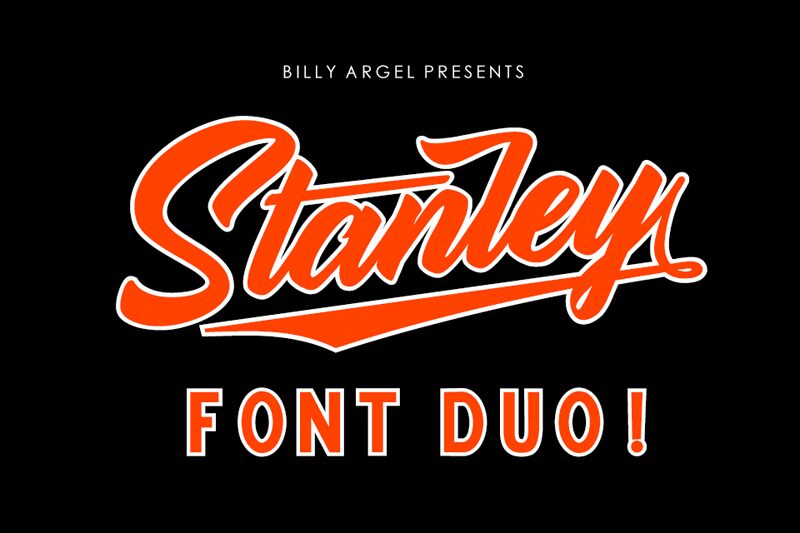
Stanley, the retro script font designed by Billy Argel Fonts, exudes a nostalgic charm that takes you back to the golden age. With its semi-bold weight and effortlessly flowing curves, Stanley brings a touch of vintage authenticity to your projects. Perfect for creating eye-catching logos, branding materials, and packaging designs that demand attention. Whether you're reviving classic advertisements or adding a retro twist to modern designs, Stanley is your go-to font for capturing timeless elegance. Let this versatile typeface transport your audience to an era filled with style and sophistication.
Font DUO!
Four layered fonts.